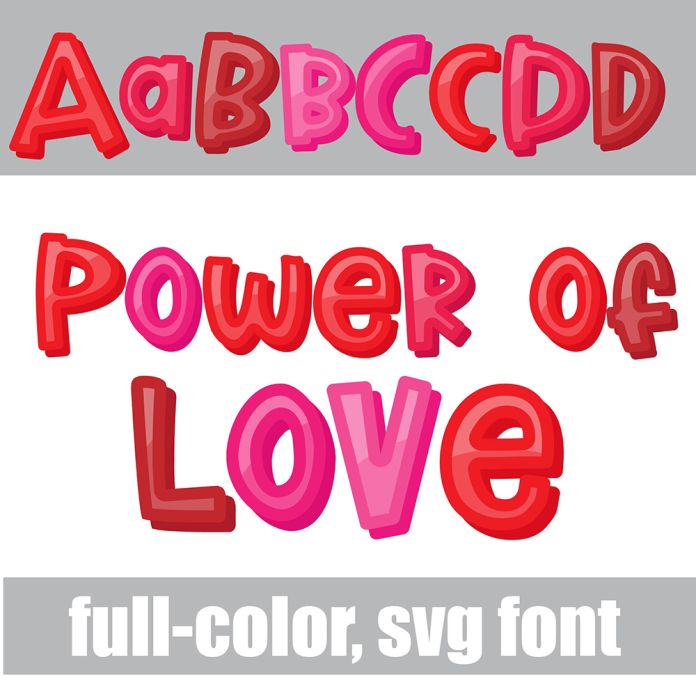
This hand-crafted, full-color font features a chunky, crafty, sans serif in a Valentines color palette. There is an alt case with an additional color of each letter. This font works best for titles, displays, posters and more. Please note color fonts will show as black in non compatible programs. This font type is compatible with Silhouette Studio.